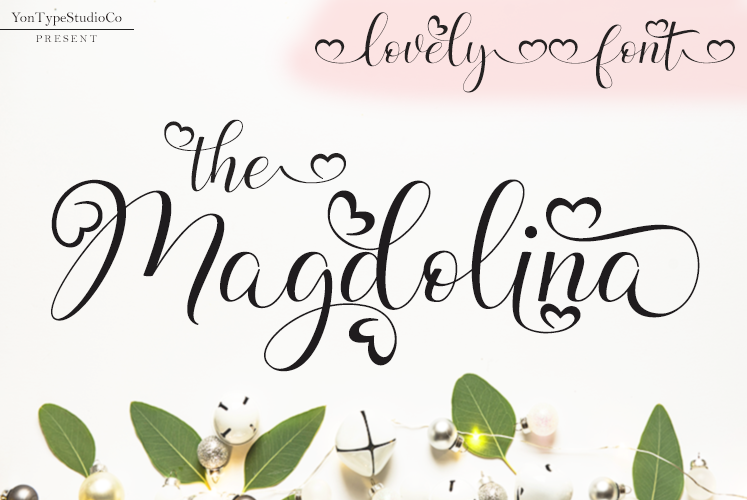
Font name: | Magdolina |
Author: | Muhammad Yoni |
Magdolina is a romantic and fashionable script font. It looks ravishing on wedding invitations, thank you cards, quotes, greeting cards, logos, business cards and every other design which needs a customized touch. ENGLISH 1. This Font License is (PERSONAL USE ONLY) Which means you can only use this font for personal purposes that are not commercial (published) Be it To Generate Profits / Profits, Both Material And Non-Material. 2. (PROHIBITED HARD) (DUPLICATING) and Distributing and Using This Font For Commercial Purposes. Be it for Advertising, TV, Film, Video, Motion Graphic, YouTube, or for LOGO & Product Packaging (PHYSICAL OR NON-PHYSICAL (DIGITAL) 3. DOUBLE (PLAGIATE / COPY PASTE) and DISTRIBUTE / USE THESE Fonts For Commercial Use Whatever type and shape, NO LICENSES or WITHOUT BUYING LICENSE OF MY FIRST LETS FROM ME as CREATOR or HOLDER OF FONT COPYRIGHT, Will Be Used for Extended License Fees with a PRICE 100 times the Price of a STANDARD License, For LICENSE INFORMATION what you will need, please contact me at: Email: (yontypestudioco@gmail.com) this my shop : https://fontbundles.net/yontypestudioco/1159931-magdolina https://www.creativefabrica.com/product/magdolina/ref/235915/ |